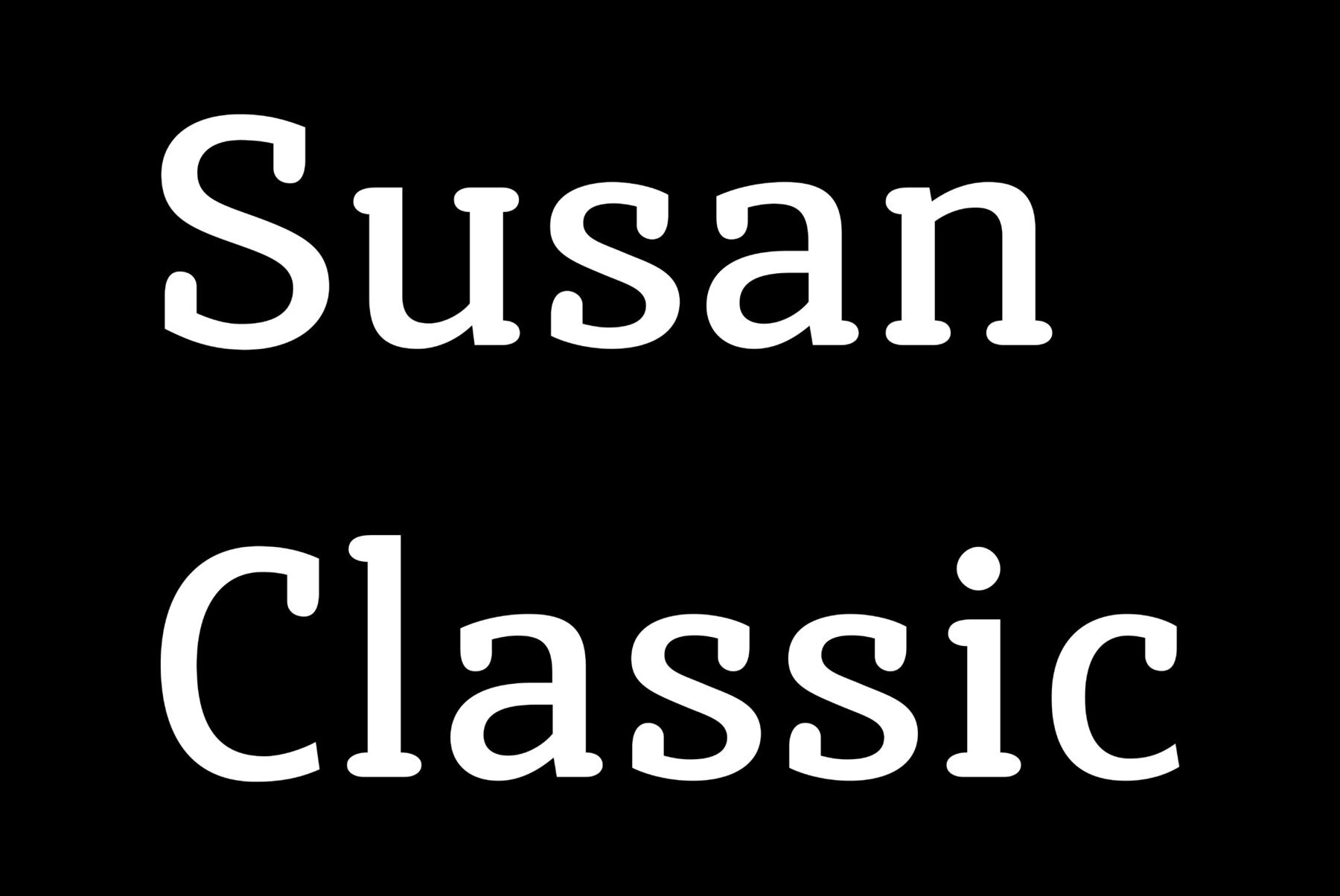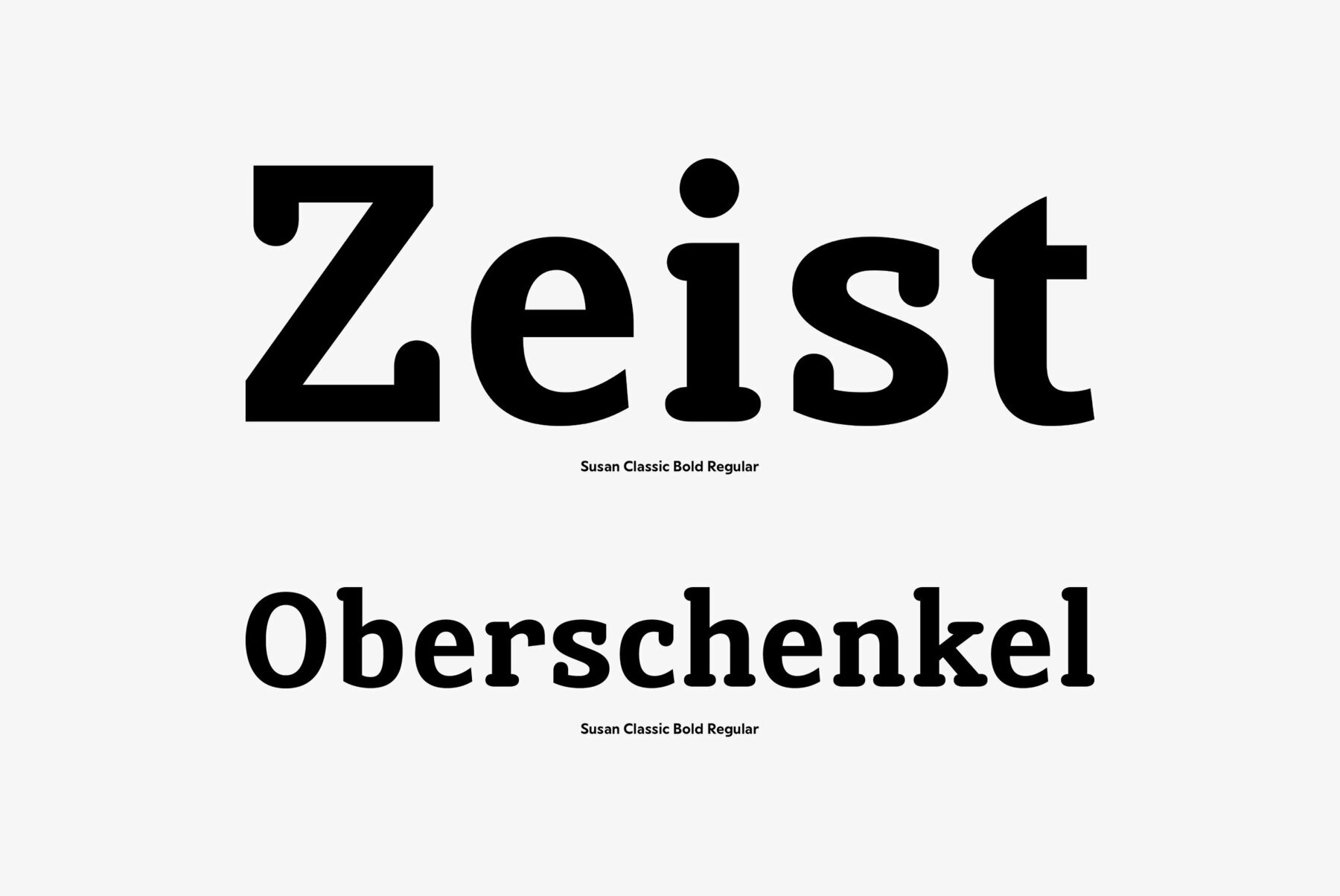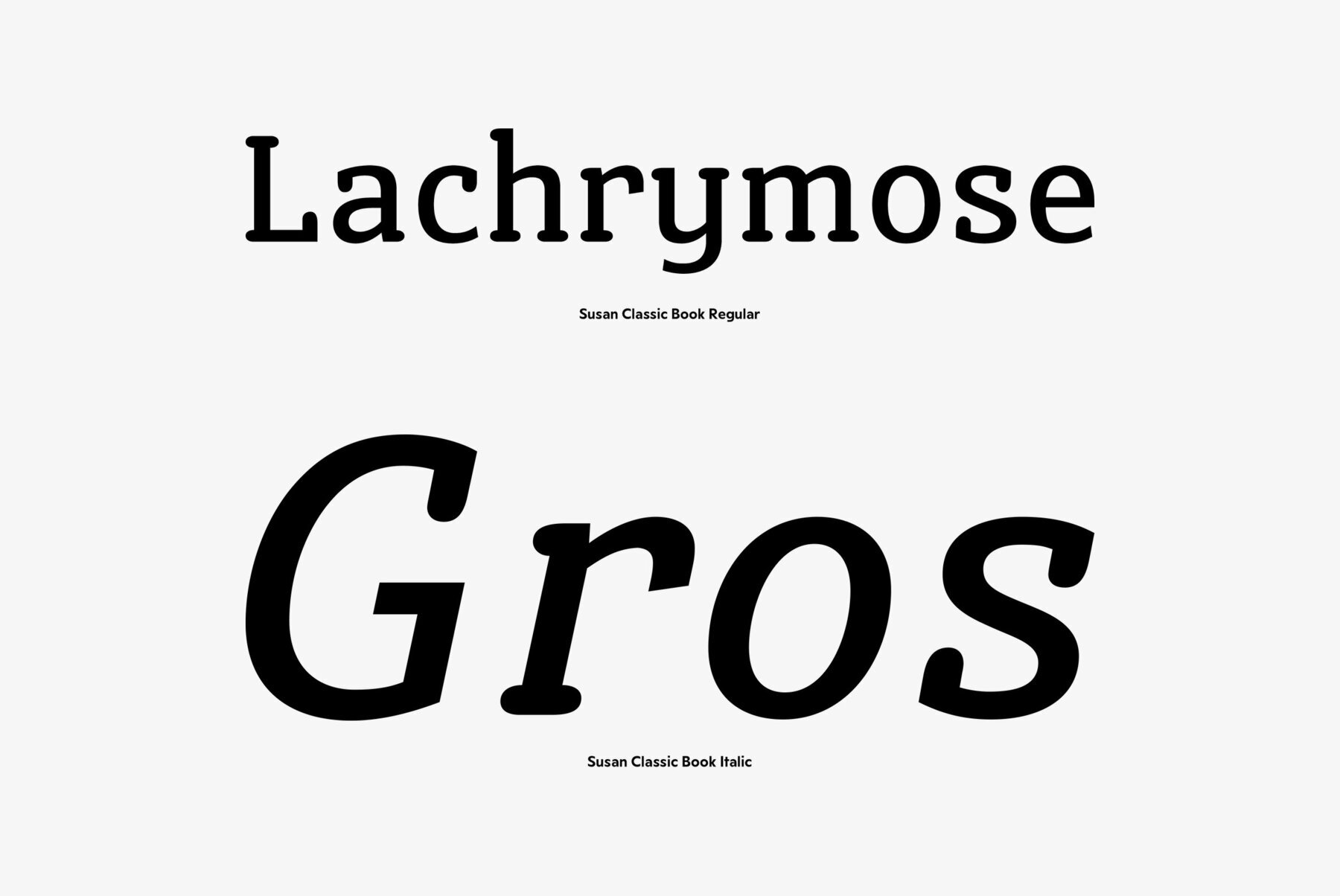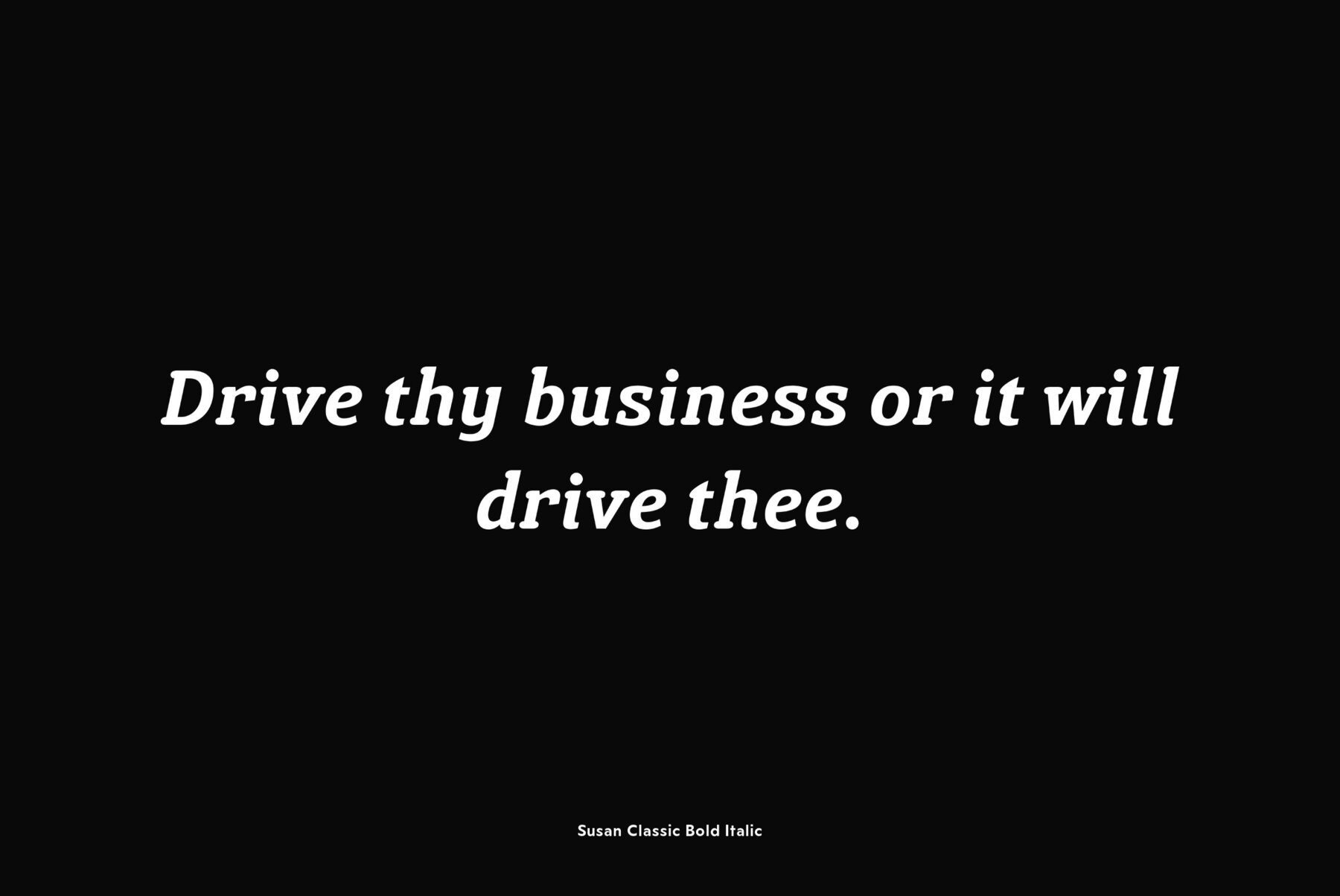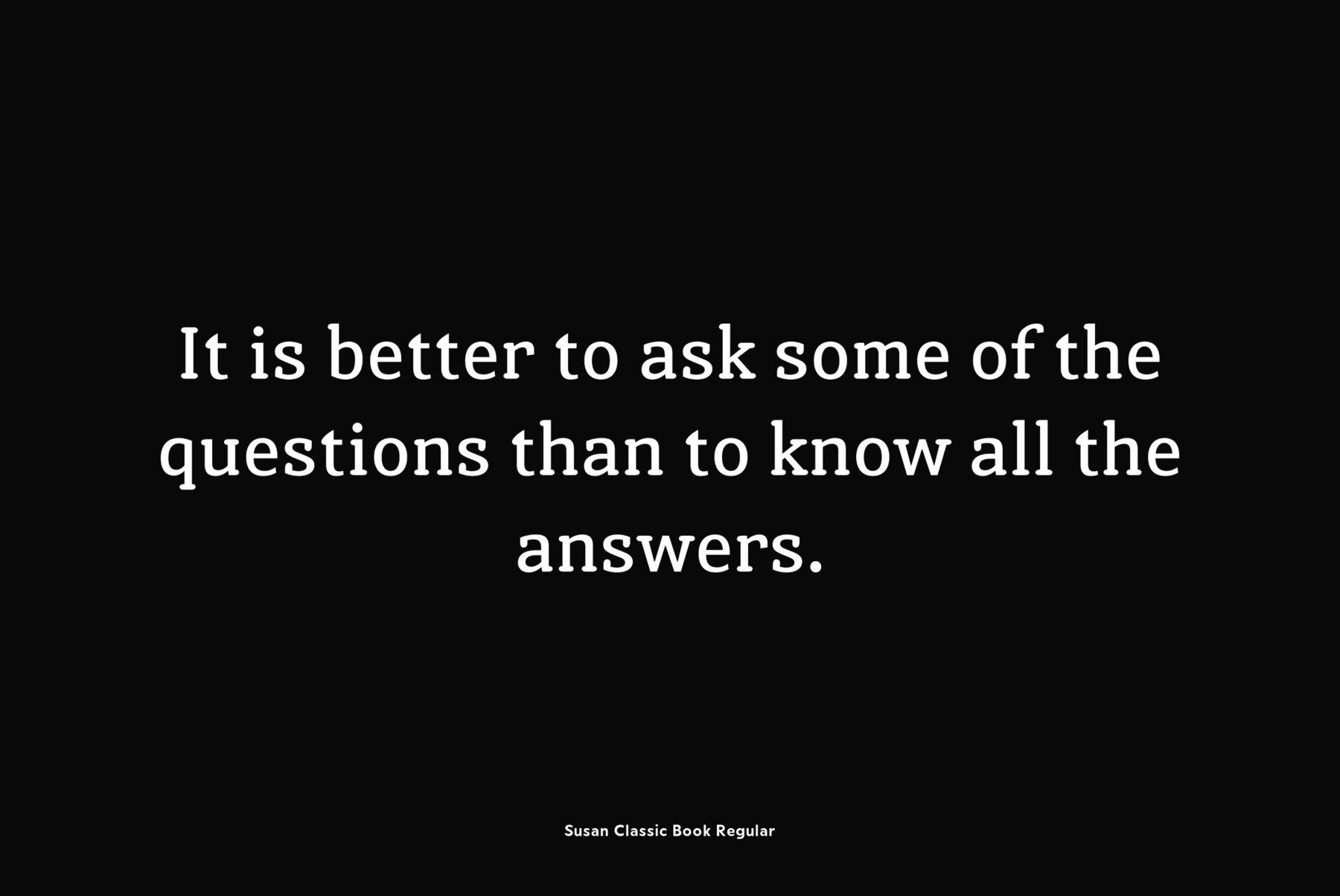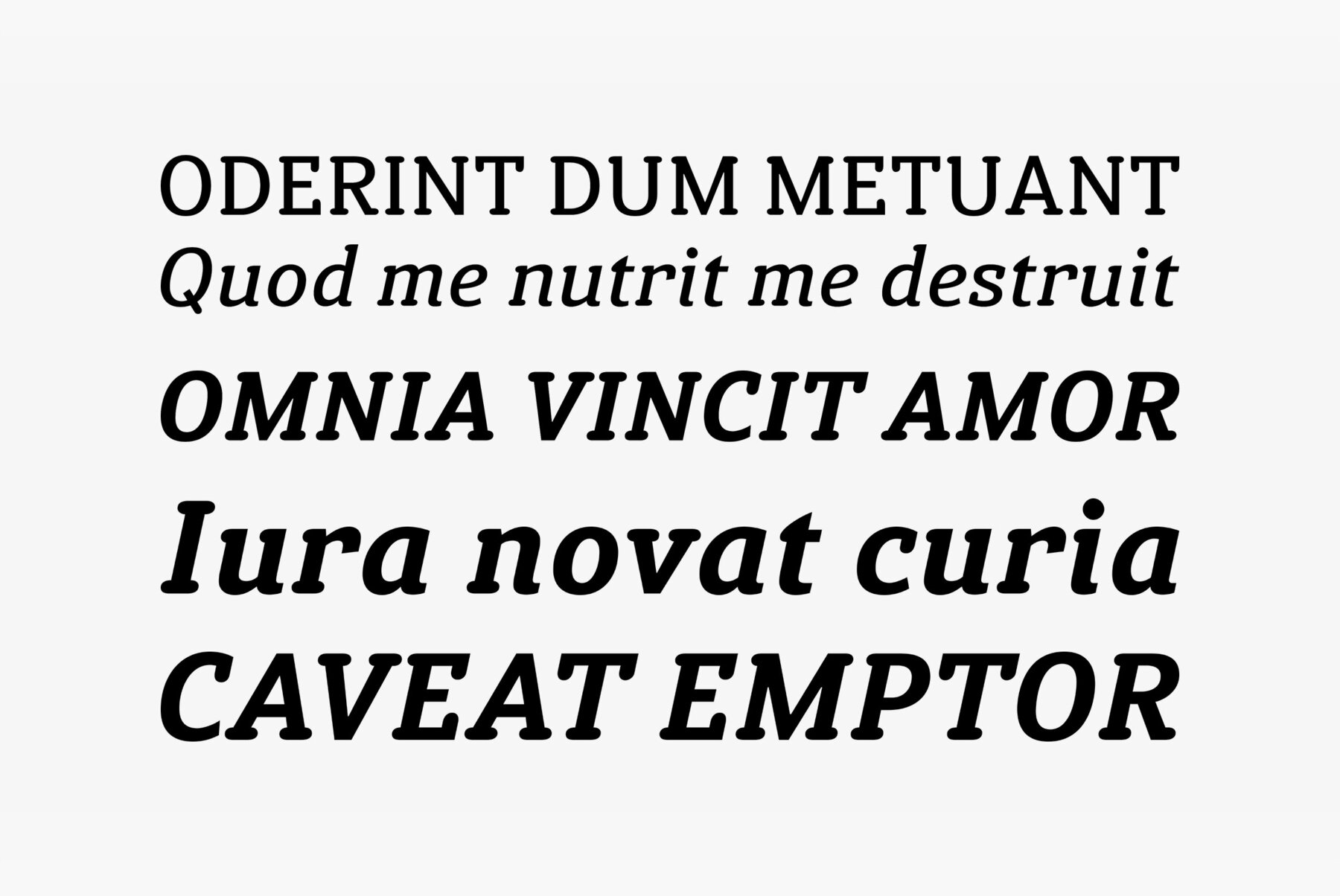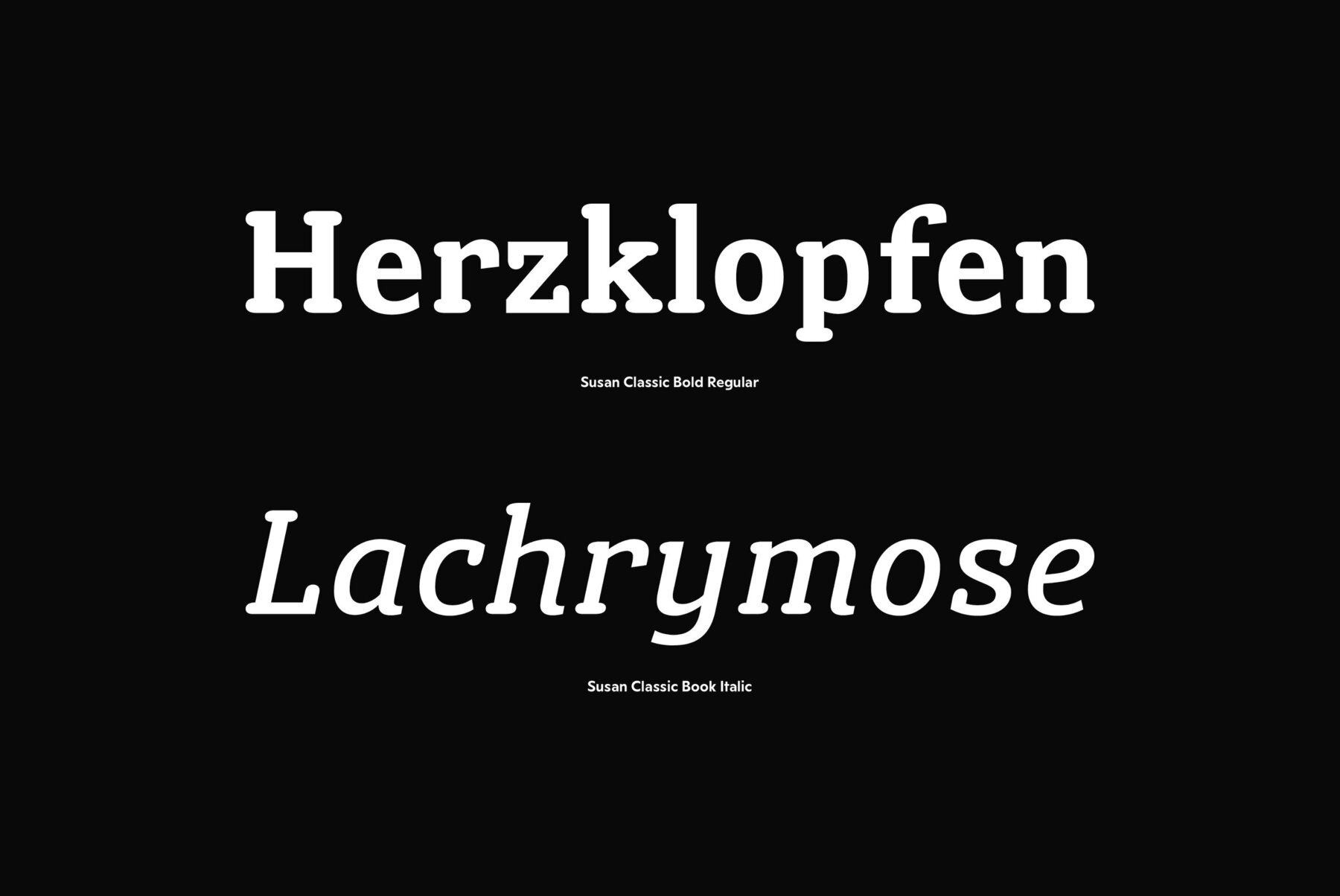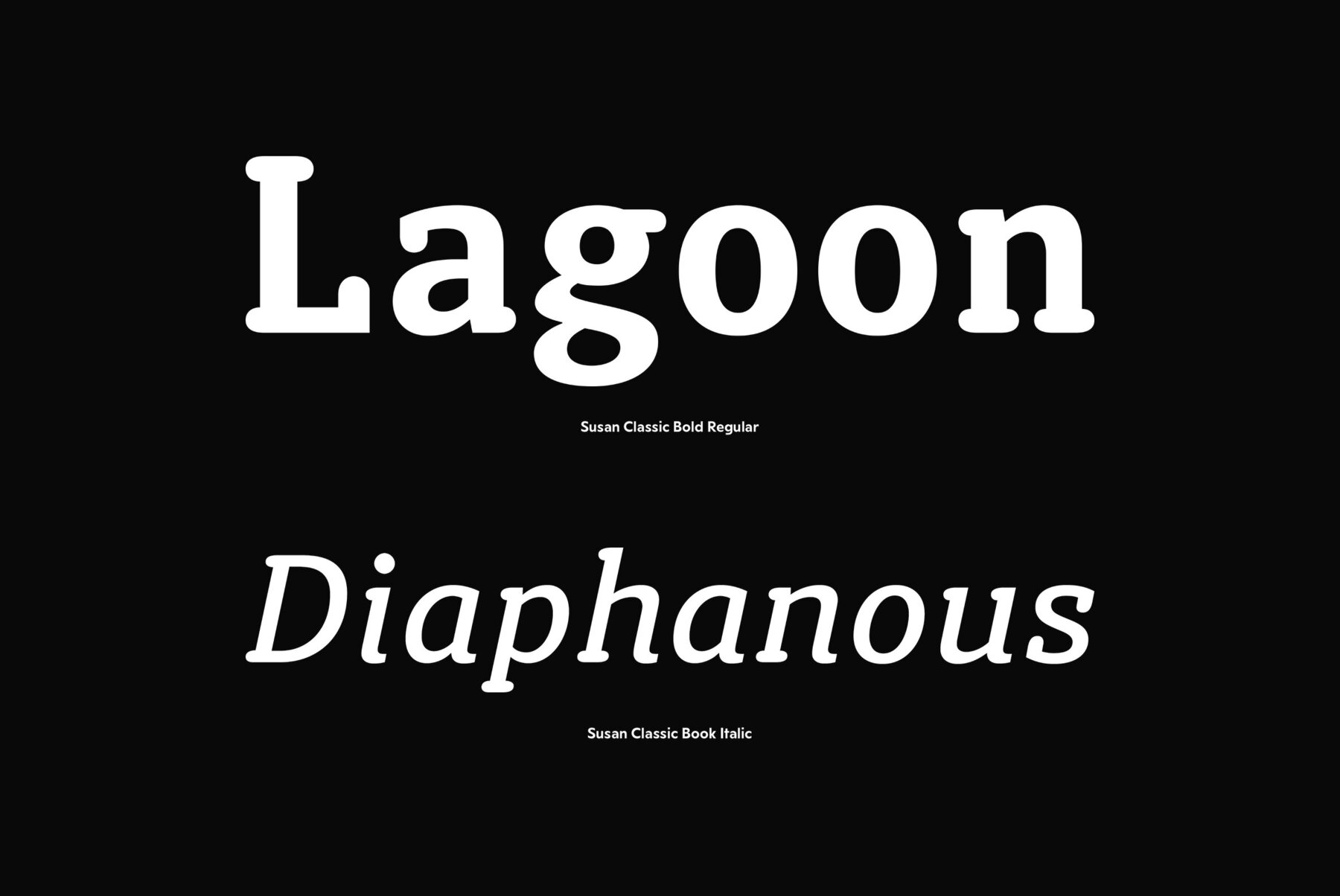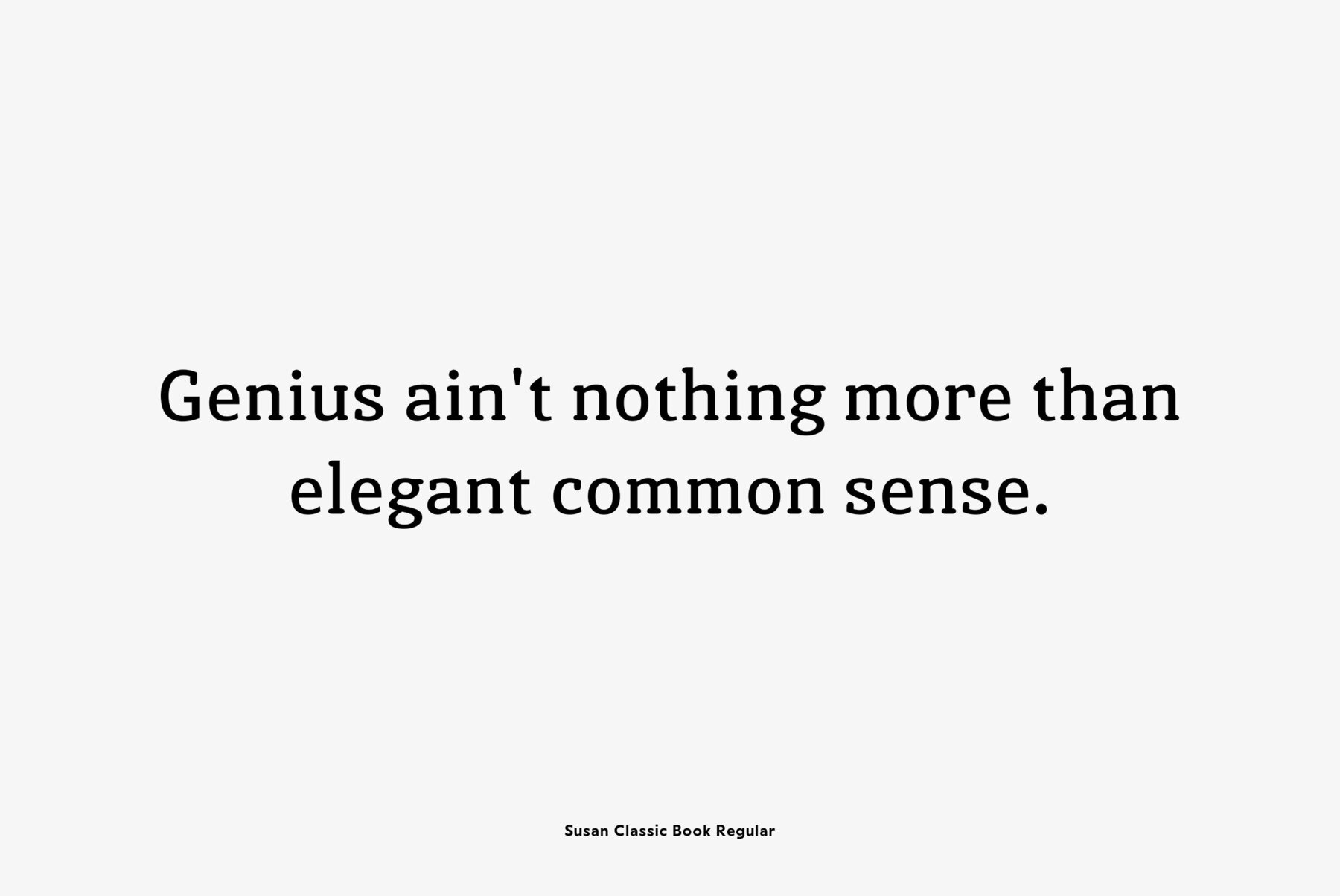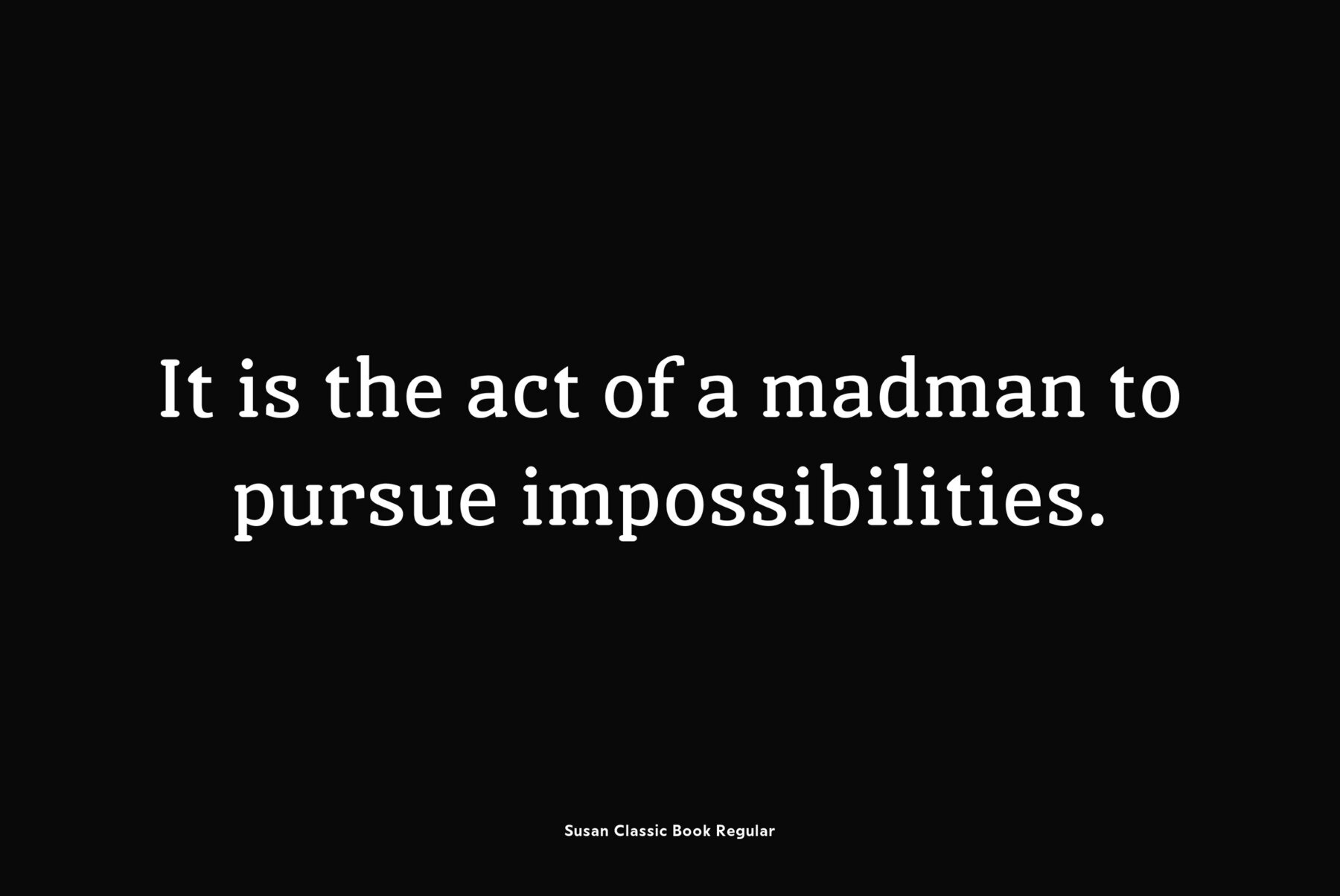
An original text and display type family was designed for ParaType in 2008 by Manvel Shmavonyan to be used together with Susan, earlier released sans by the same author. This is a low-contrast slabserif font with open letterforms. Its shape is distinguished by one- and two-sided rounded serifs. Susan Classic is well suited for short and middle range text composing as well as for use in advertising and display typography.